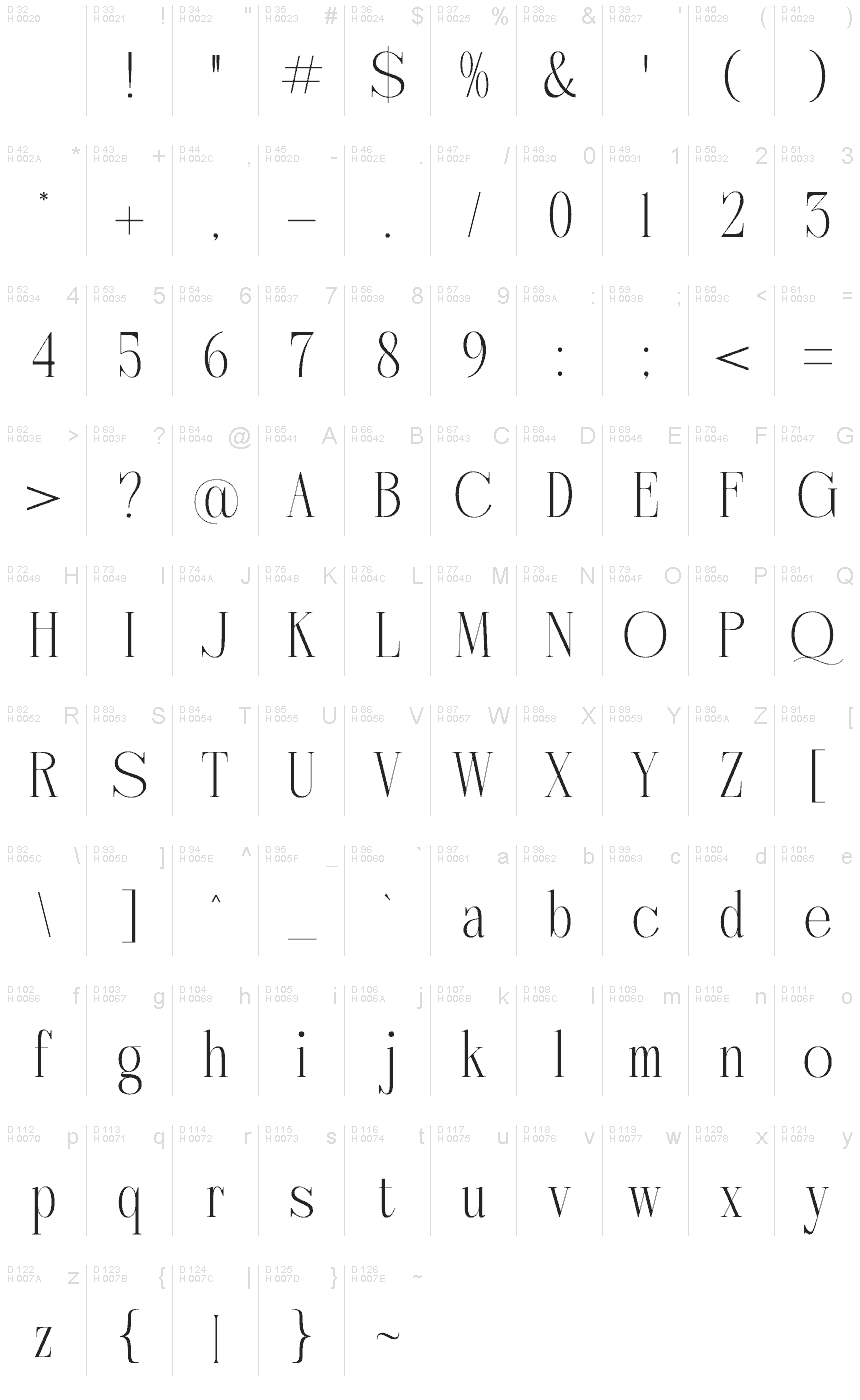
Nebiard
Nebiard font by Storytype Studio is a condensed serif typeface known for its elegance and sophistication. This modern font combines subtle curves with a refined structure, delivering a graceful appearance that stands out. Its design revolves around finesse, offering designs an opportunity to capture attention in the most elegant of ways.
This free serif font is ideal for projects and products within the titles of magazines and newspaper headlines, both digital and printed. The font works well with branding designs like logo typography, package presentations (coffee packages or tea bags), cosmetics labels marketing ads (perfumes), etc.